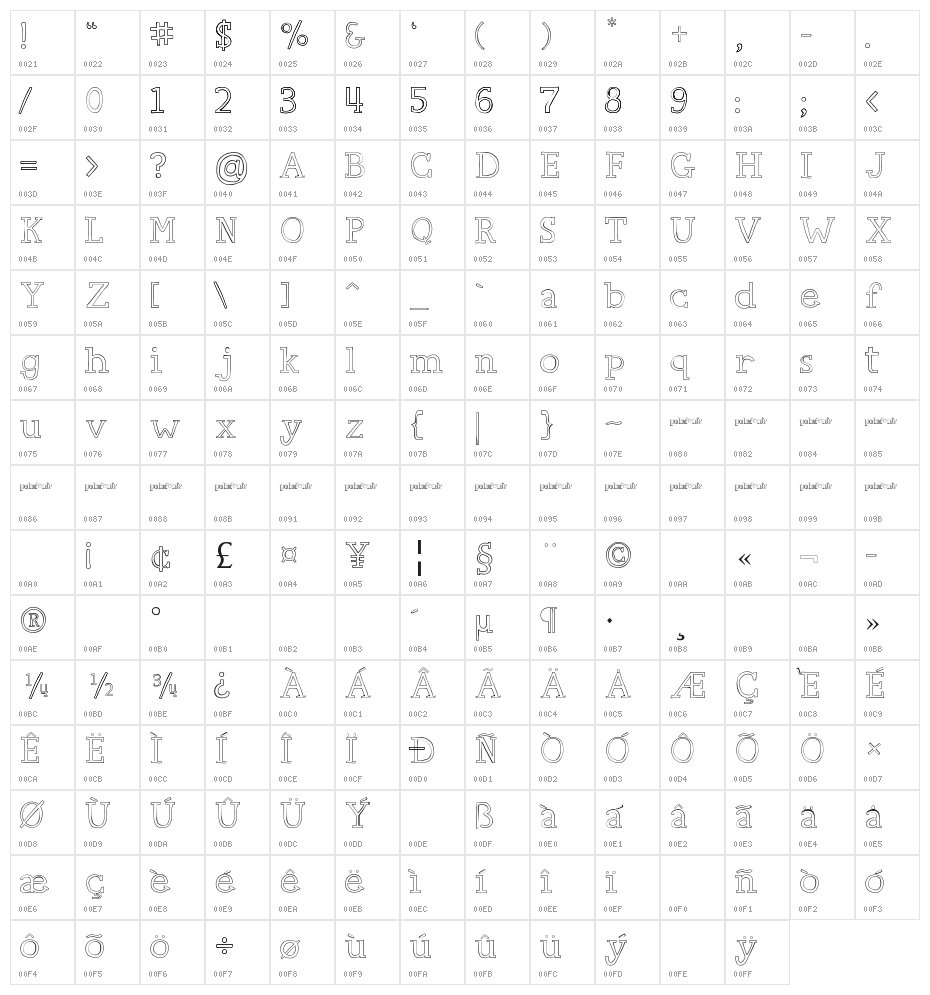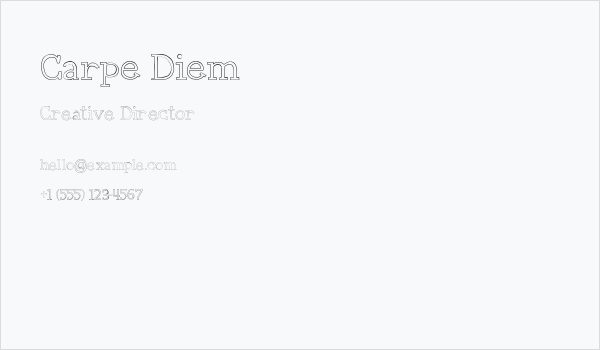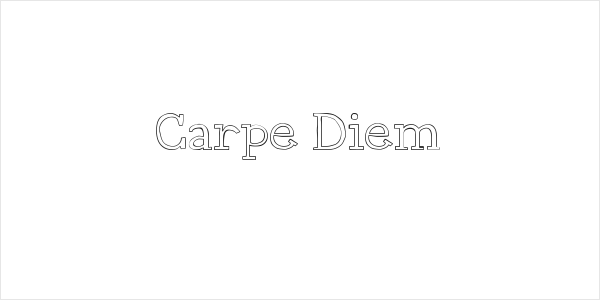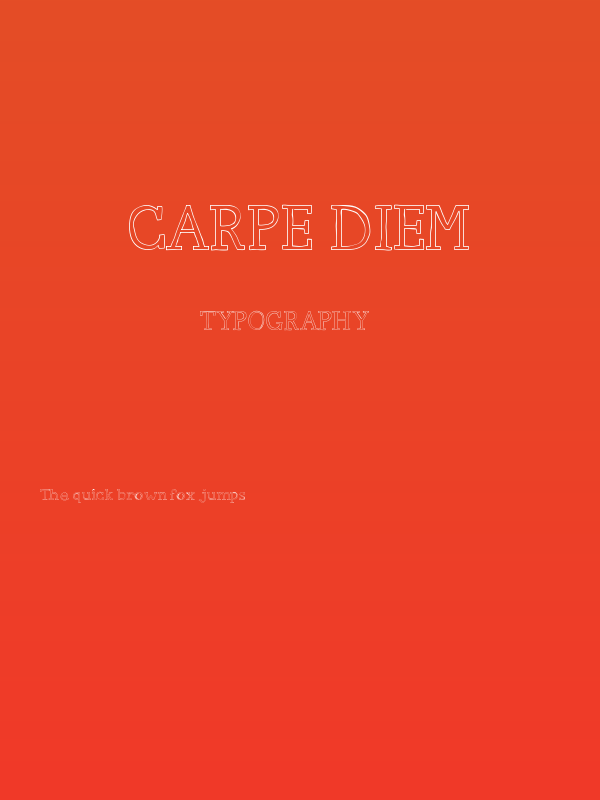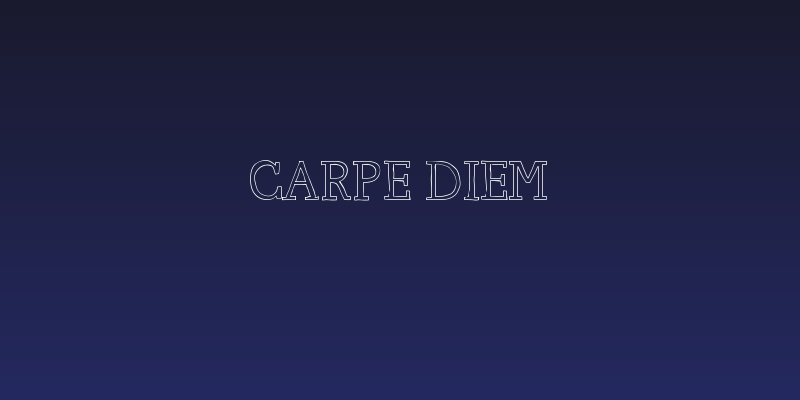
Carpe Diem Font
Carpe Diem Description
This font features a classic serif style with a modern twist, characterized by its outlined design. The uppercase letters are bold and commanding, while the lowercase letters maintain a consistent and readable form. The numerals are clear and distinct, making them suitable for a variety of uses. Special characters are well-defined, adding versatility to the font. The overall appearance is both elegant and contemporary, making it suitable for a wide range of design projects.
Use CaseHeadlines, Logos, Branding
Proposed ProjectsIdeal for branding, headlines, posters, and invitations where a touch of sophistication is desired.